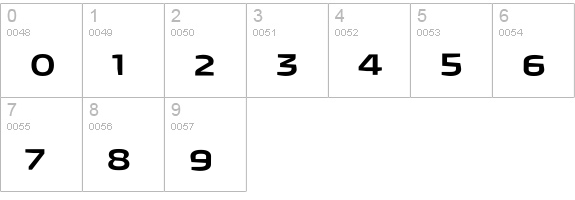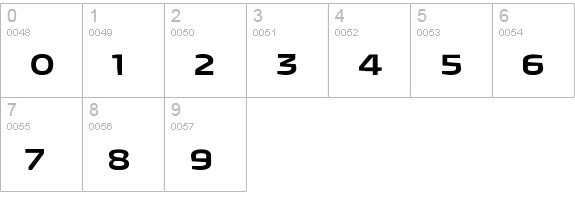
Quagmire-MediumExtended is a visually stunning font that effortlessly captures attention with its unique and sophisticated design. Its medium weight strikes the perfect balance between boldness and elegance, making it suitable for a wide range of creative projects. This font exudes a sense of modernity and professionalism, making it ideal for branding materials, logos, headlines, and editorial designs. With its extended characters, Quagmire-MediumExtended adds a touch of originality and flair to any creative endeavor. What sets Quagmire-MediumExtended apart is its versatility and adaptability. It seamlessly blends into both digital and print mediums, ensuring that your message is conveyed effectively regardless of the platform. Whether it's a website, social media graphics, or a printed brochure, this font is sure to make a lasting impression. The best part? Quagmire-MediumExtended is available for free download at FontsMarket.com. This means that you can effortlessly access and utilize this exceptional font without any cost. Designed with the user in mind, FontsMarket.com offers a seamless and convenient platform to download Quagmire-MediumExtended and explore a vast library of other high-quality fonts. Embrace the power of Quagmire-MediumExtended and elevate your designs to new heights. Its impeccable style, combined with its accessibility, makes it a valuable asset for both professional designers and enthusiasts alike. Let Quagmire-MediumExtended be your go-to font choice and experience the creative possibilities it brings to your projects.